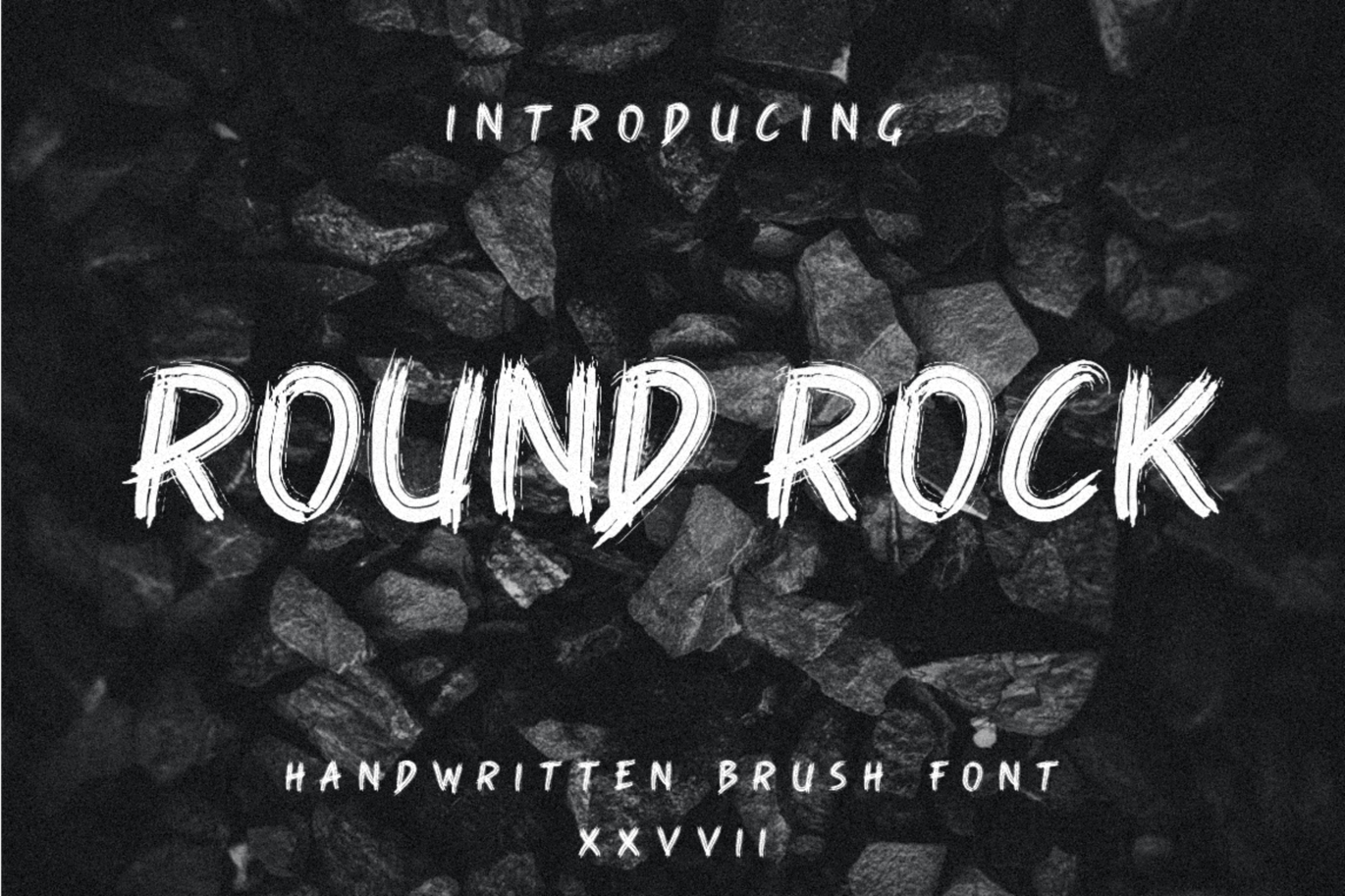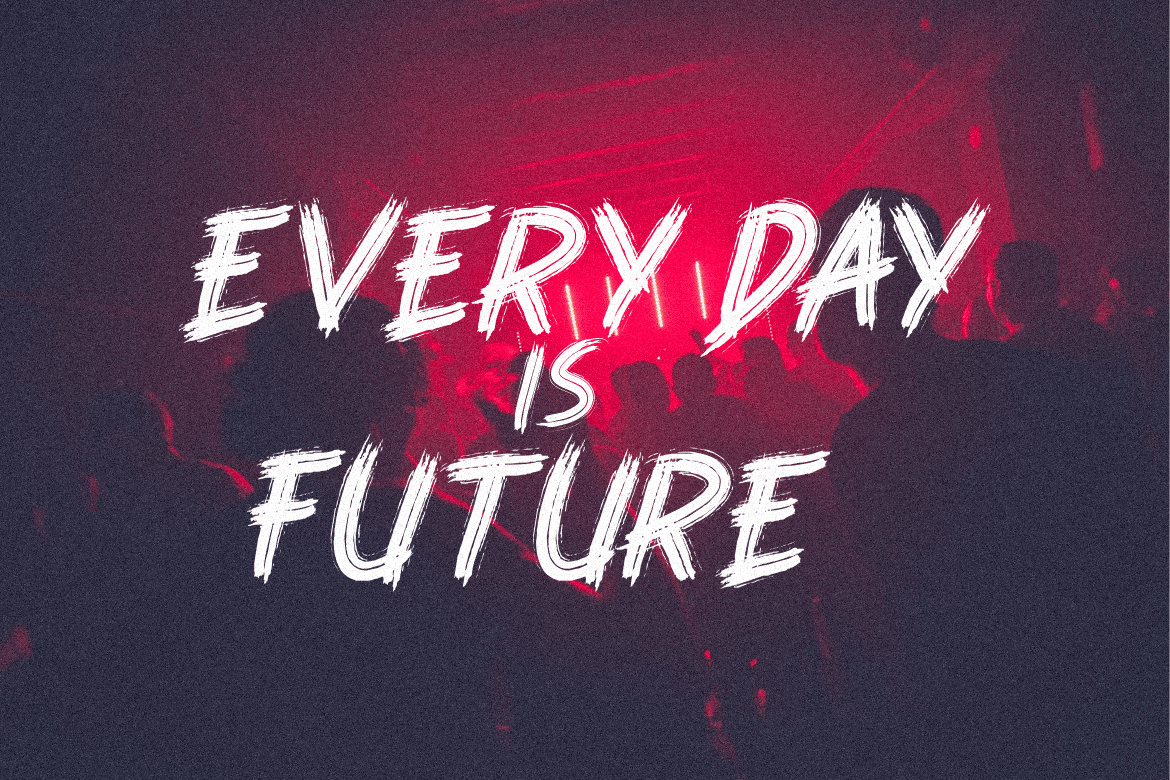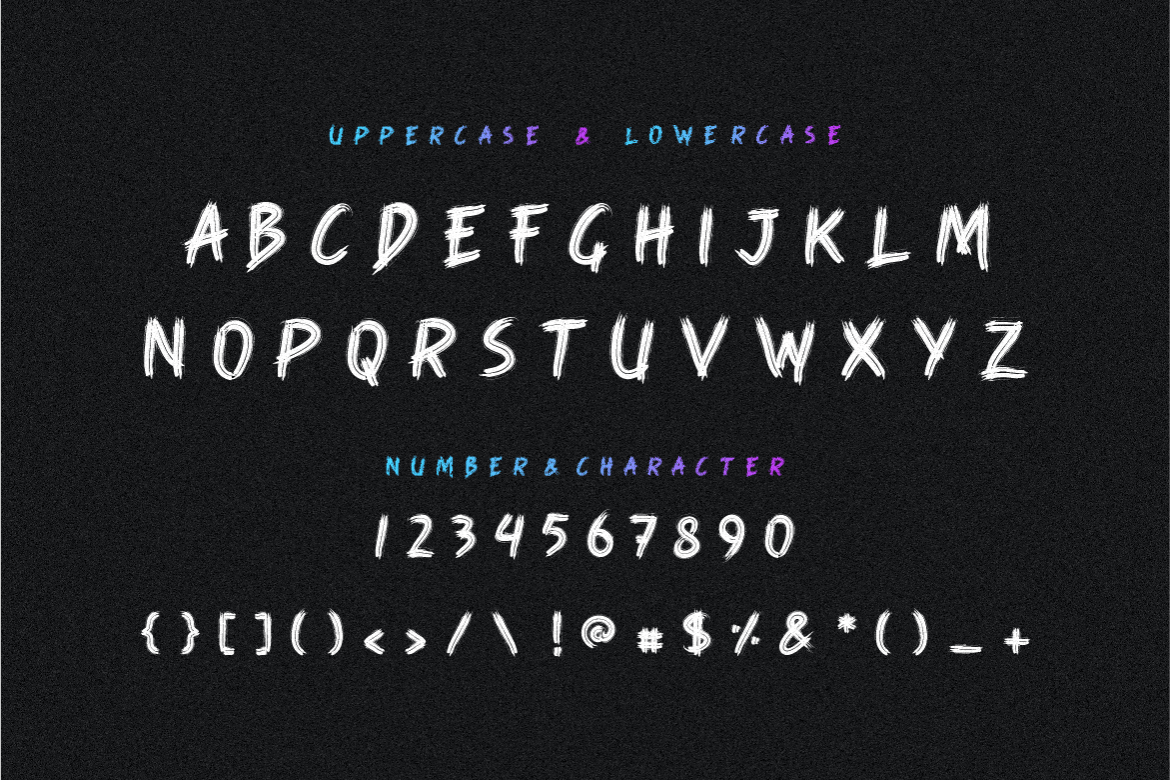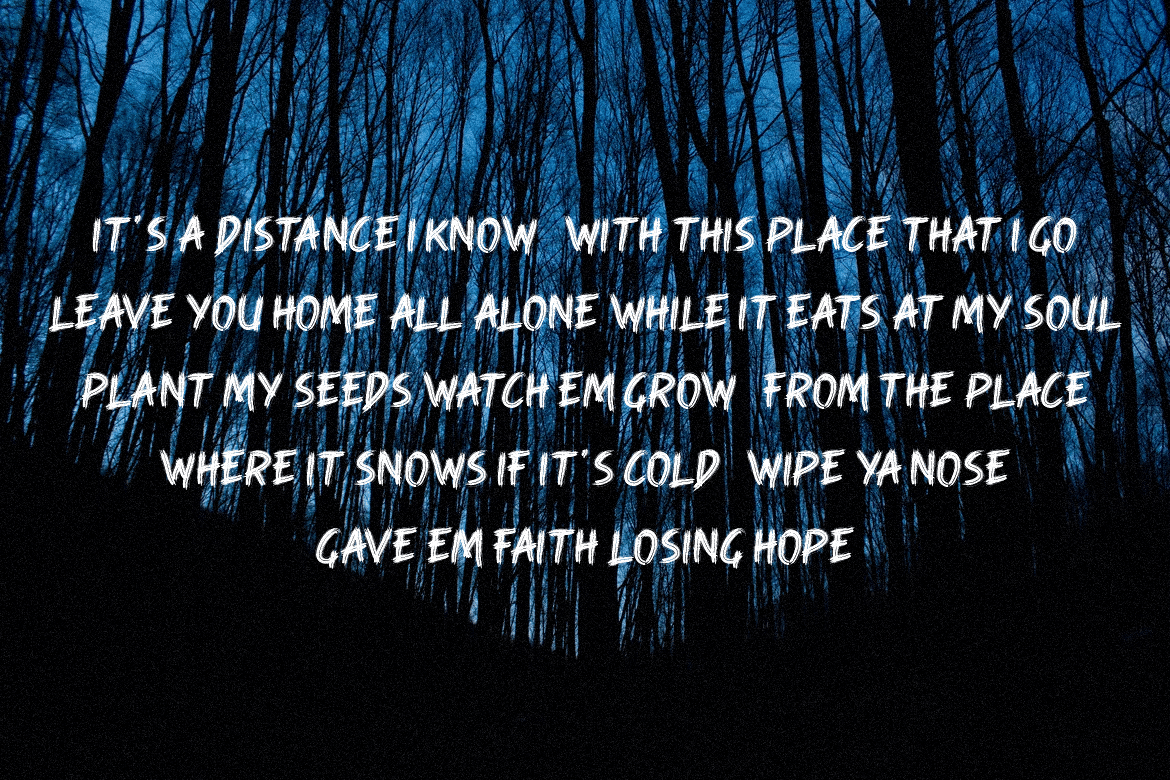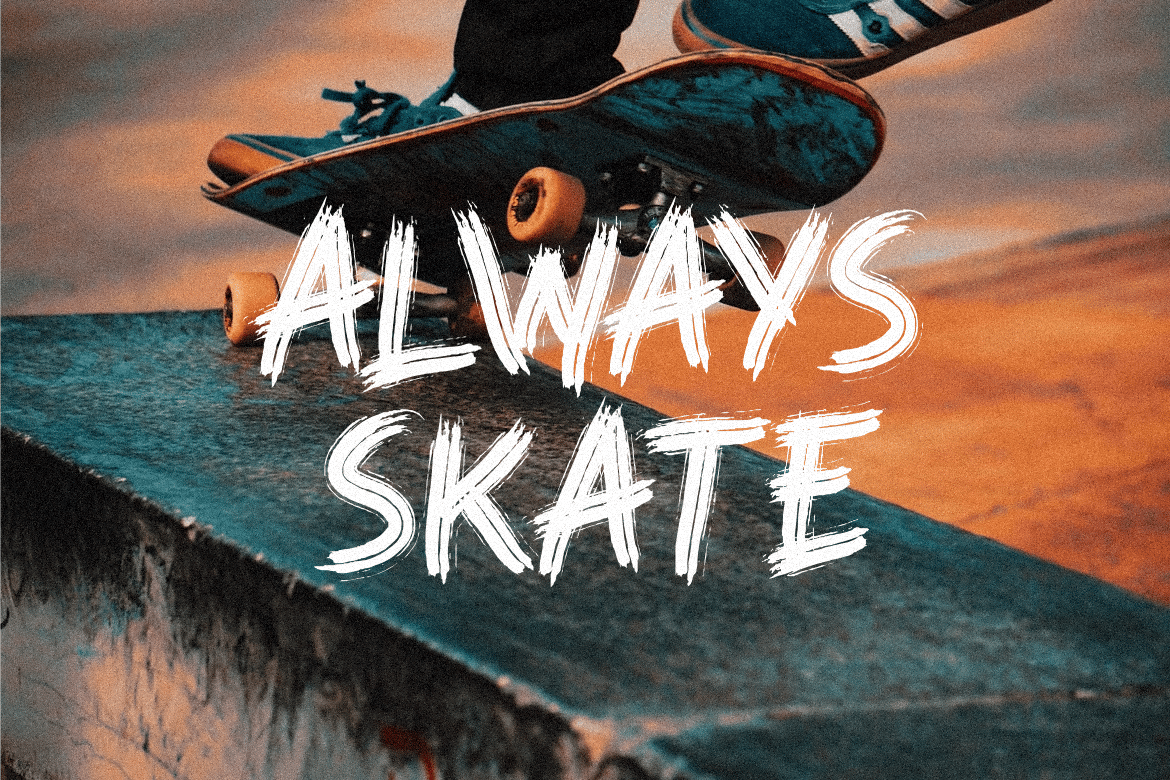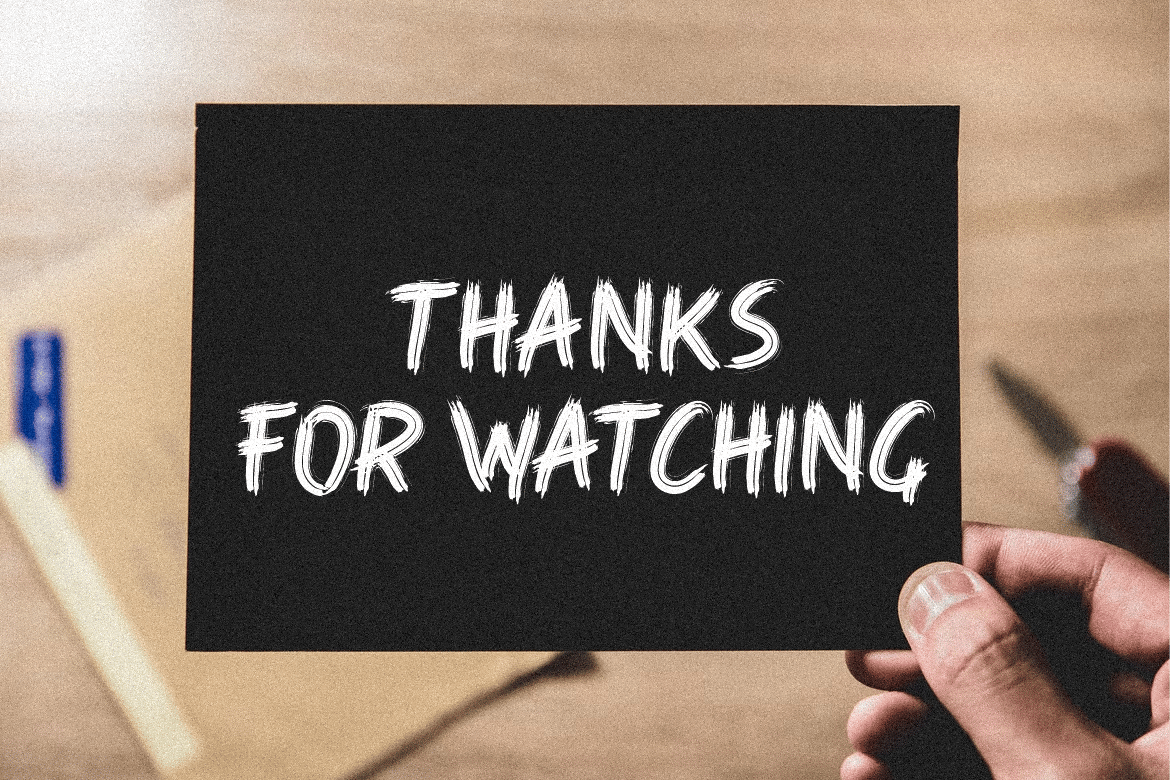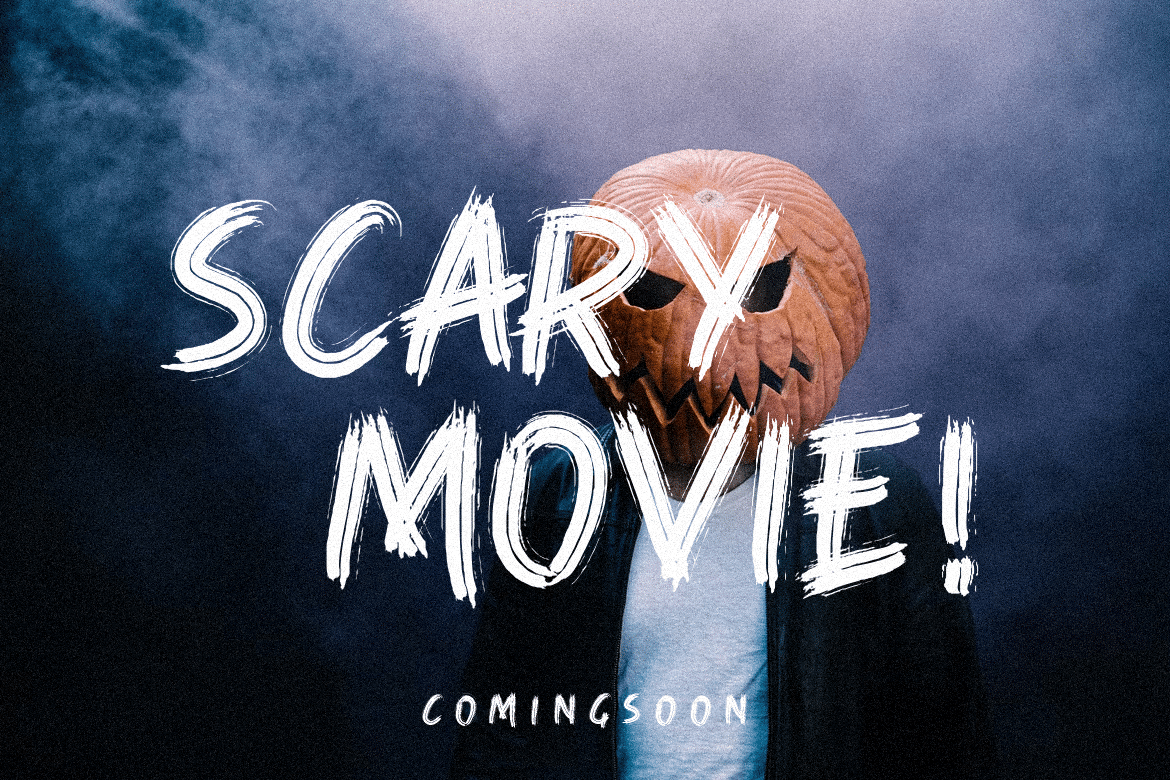
Round Rock Brush Font
Introducing our new product Round Rock Brush Font – Modern Font
Round Rock Brush Font – Modern Font is a bold and authentic display font. The font is suitable for any branding project like logo, t-shirt printing, esport, and many more. outstanding in a wide range of contexts.